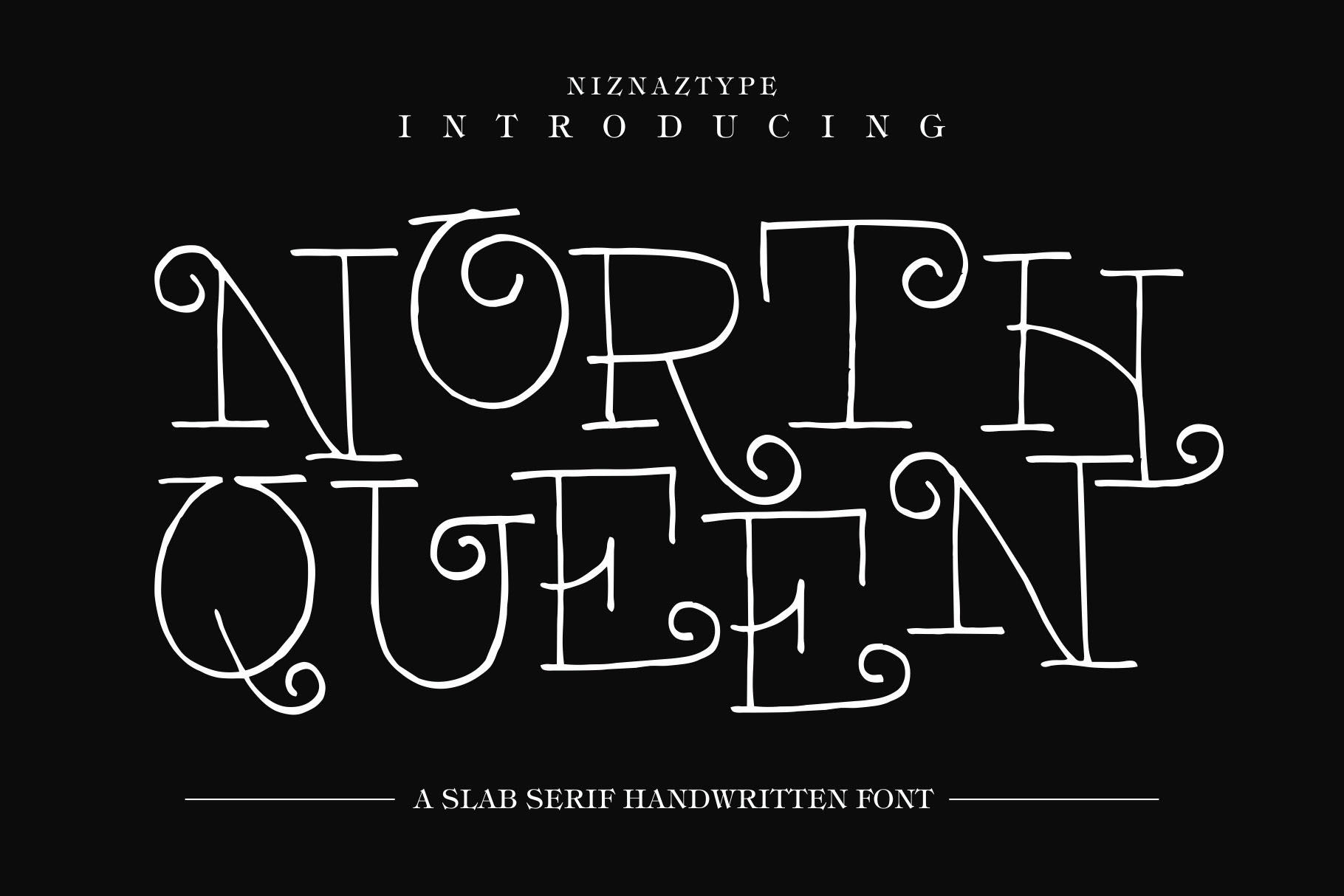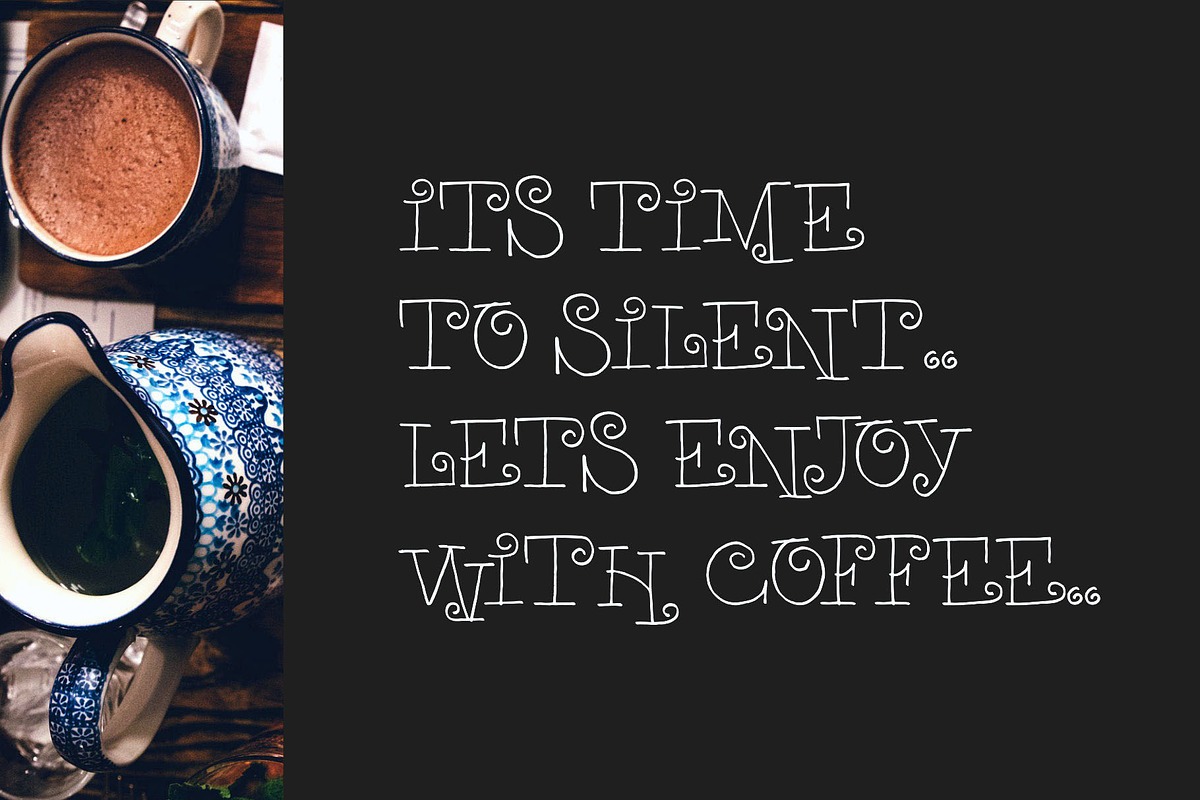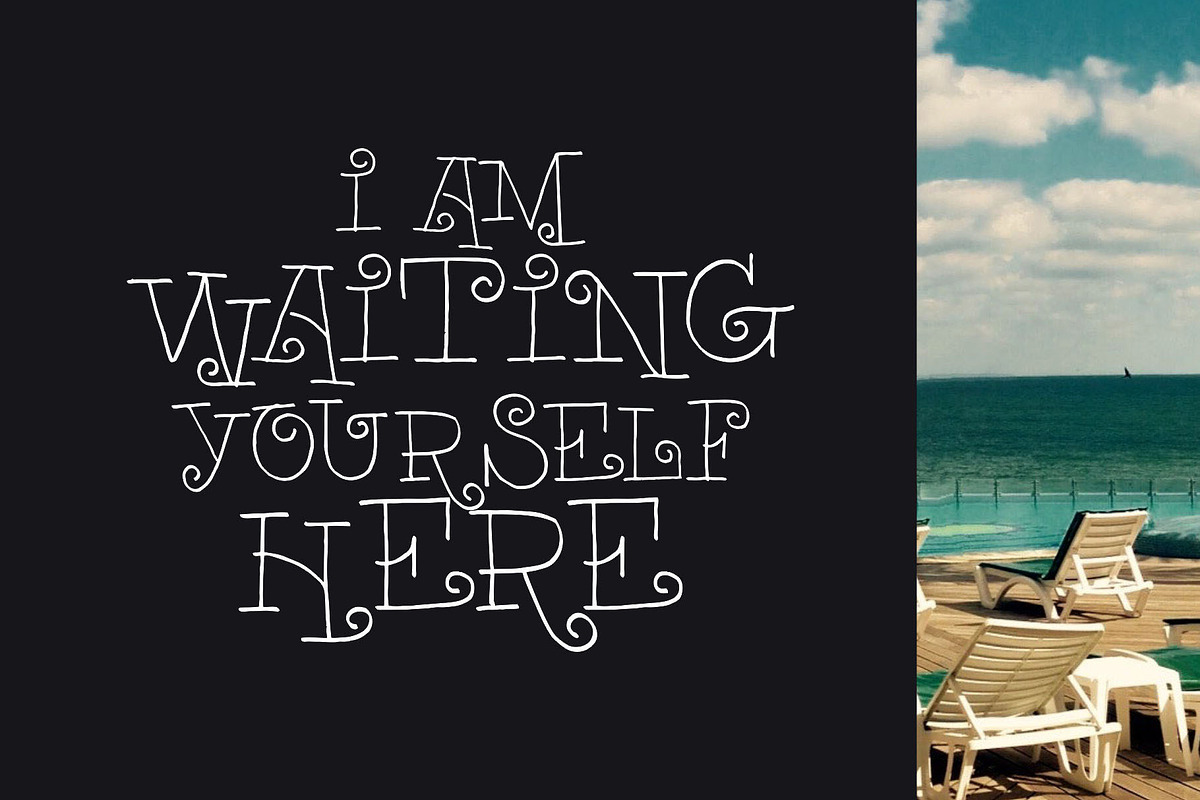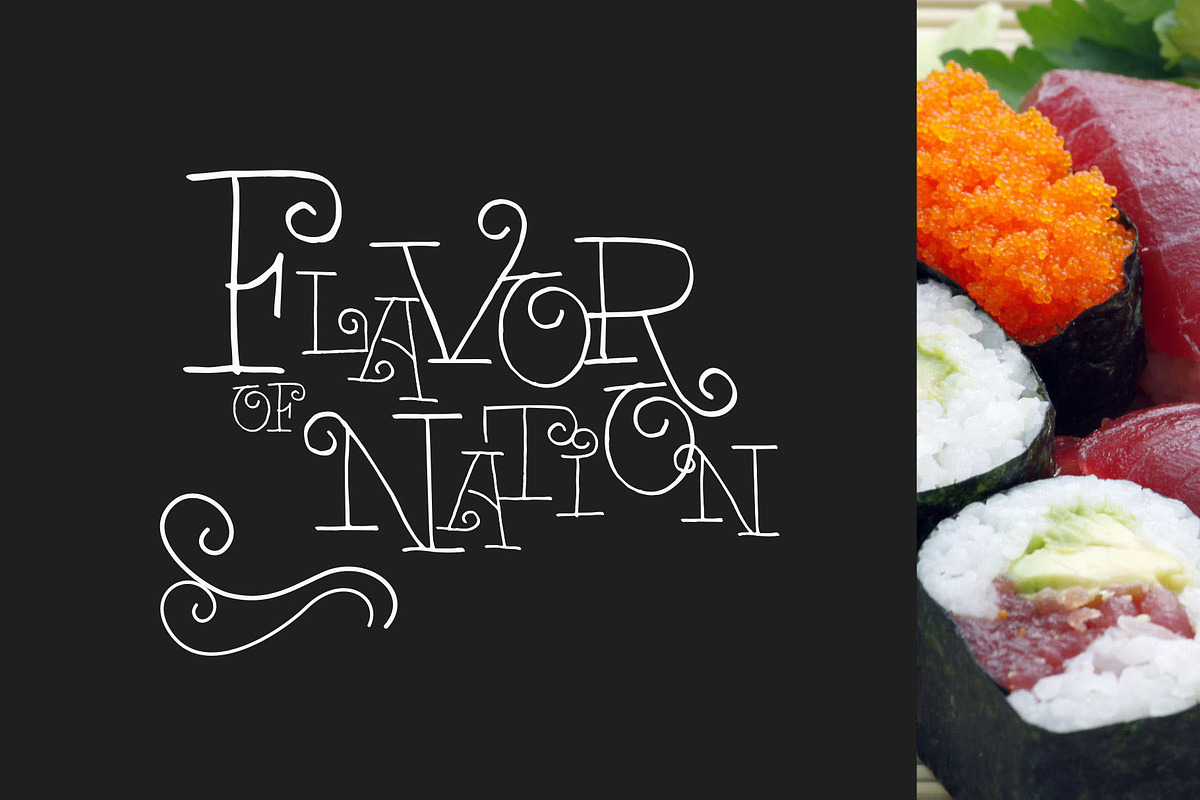
North Queen - Slab Serif Font
Introducing a handwritten typeface that have an ethnic and ornament style. North Queen is a slab serif typeface. Simple and cute. Please use this North Queen font for poster, wallpaper, tittle, t-shirt, headline and others. North Queen saved in three formats, TTF OTF and WOFF. This font will make your desing became more better. Please, enjoy it with my this font product. Send me email in emnazar@gmail.com if you have any question.